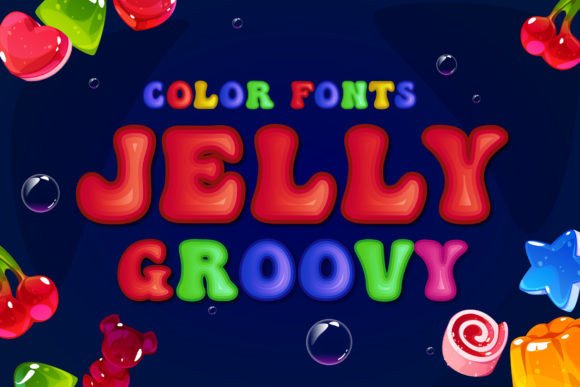
Looking for the best font for primary school? Look no further than Jelly Groovy Font, a colorful font family that will make any project pop. Created by Fox7, this font is perfect for adding a fun and authentic feel to your creative endeavors.
Jelly Groovy Font is a cute and bright color font that will capture your heart. With its playful style and unique look, this font is sure to turn heads and make your projects stand out. Whether you're creating beautiful invitations, stunning stationary art, eye-catching social media posts, or cute greeting cards, this font is the perfect addition to your creative arsenal.